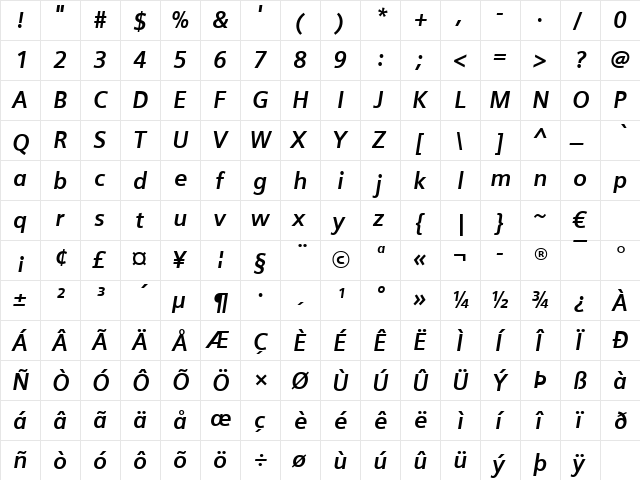
Siemens Sans Bold Italic
Design Context for Siemens Sans Typeface
Siemens Sans takes a measured approach to typography — its balanced proportions and neutral character make it a reliable workhorse for both digital and print work. The dynamic lean of this cut emphasises speed and emphasis in any layout. The heavy weight commands attention and anchors typographic hierarchies.